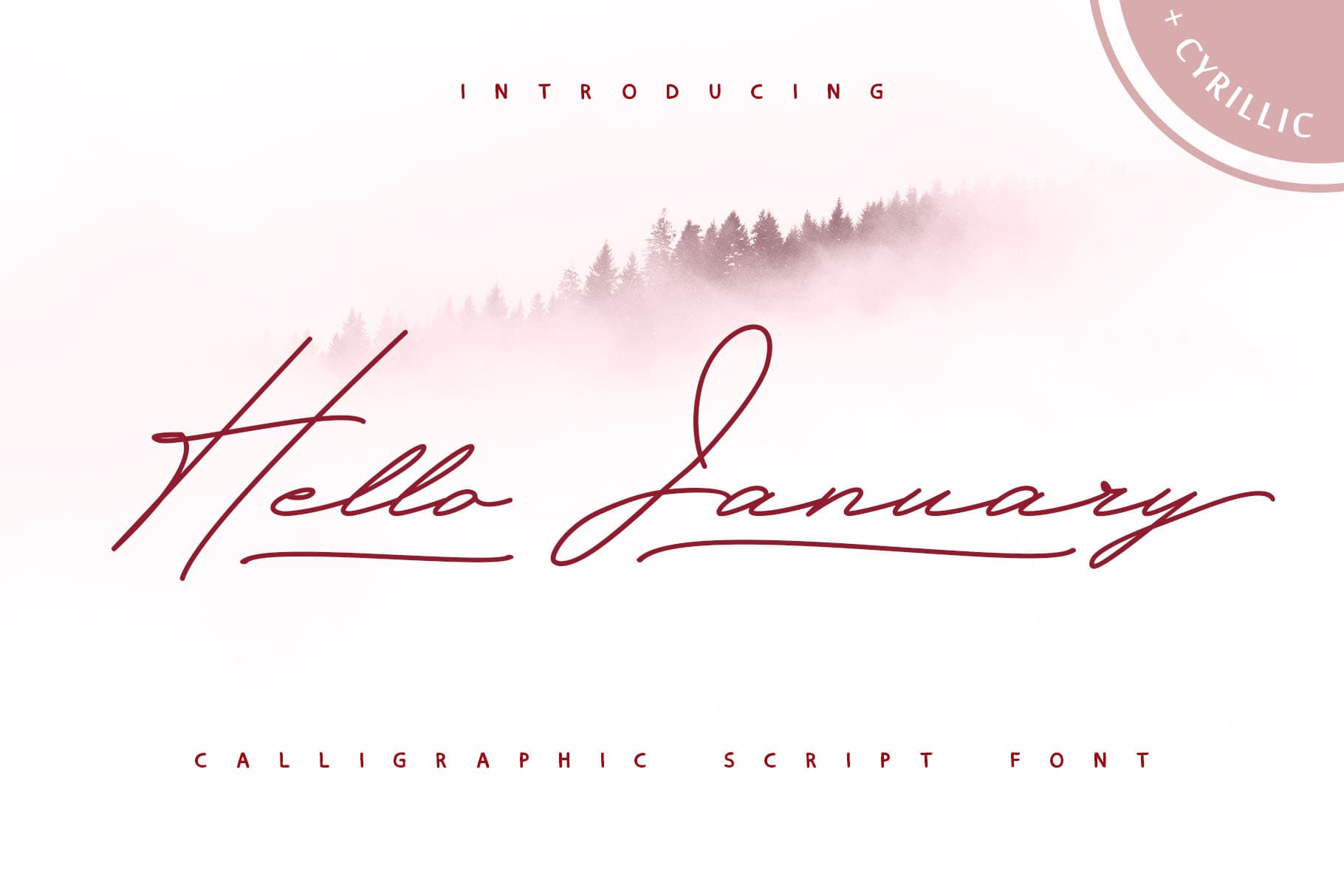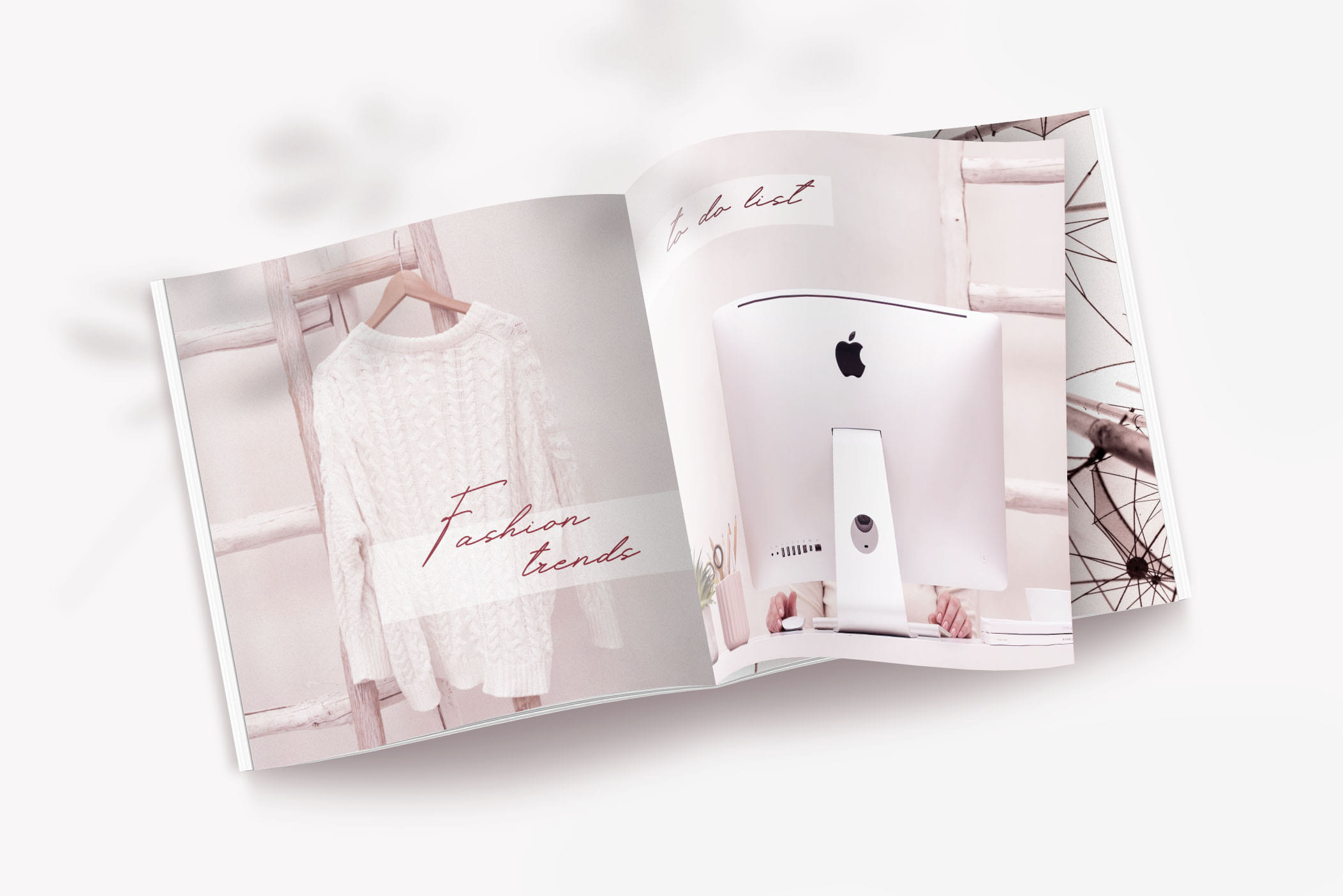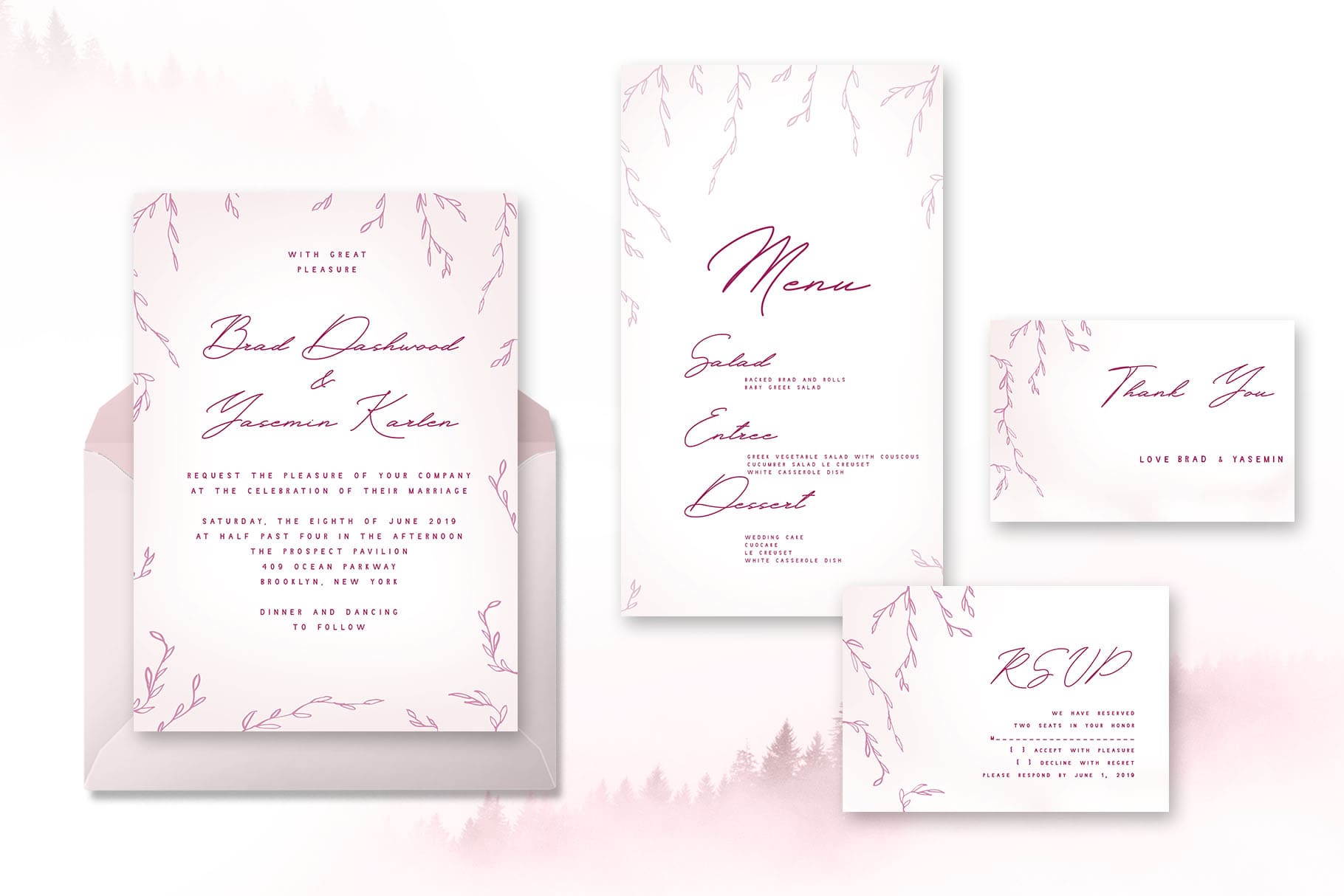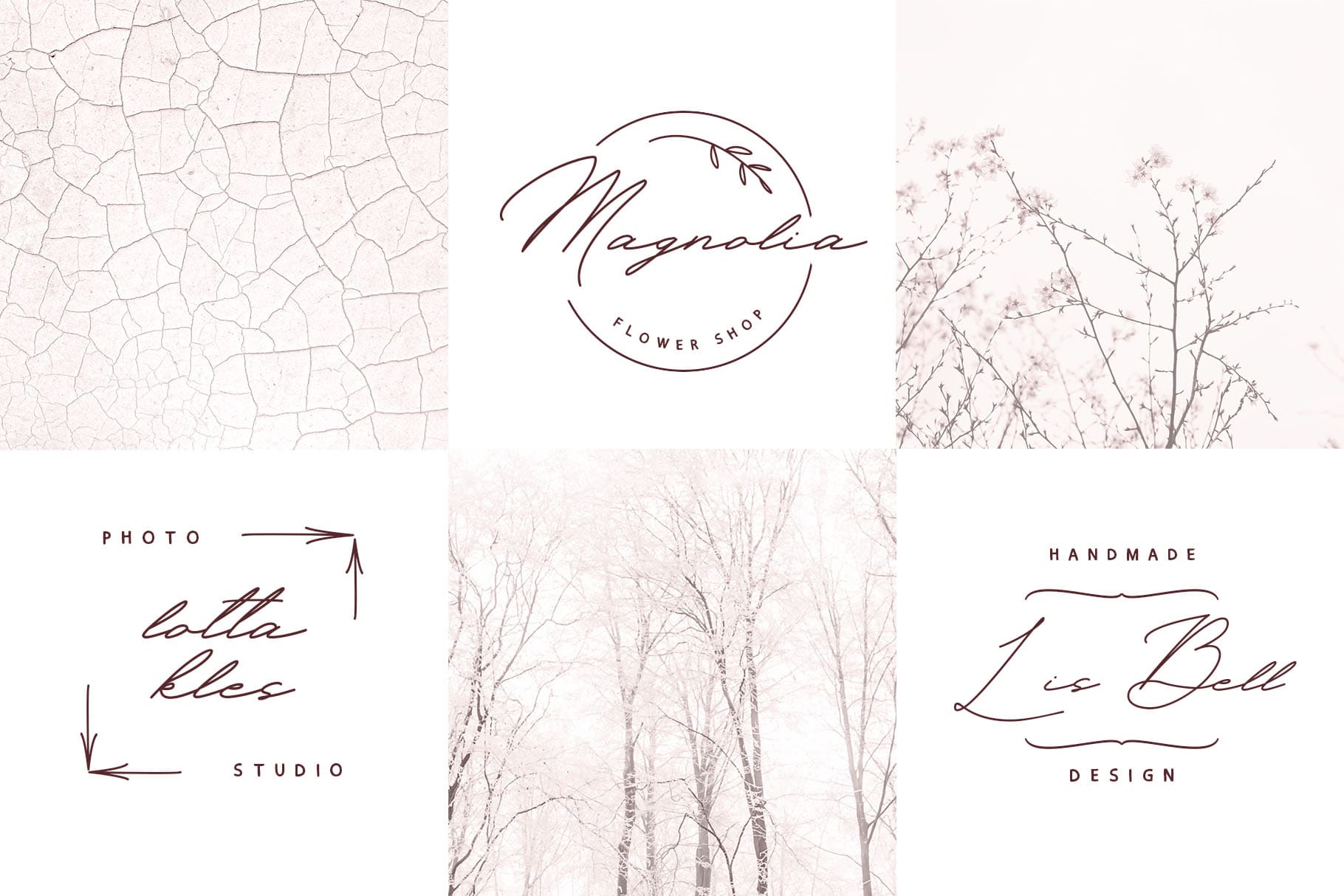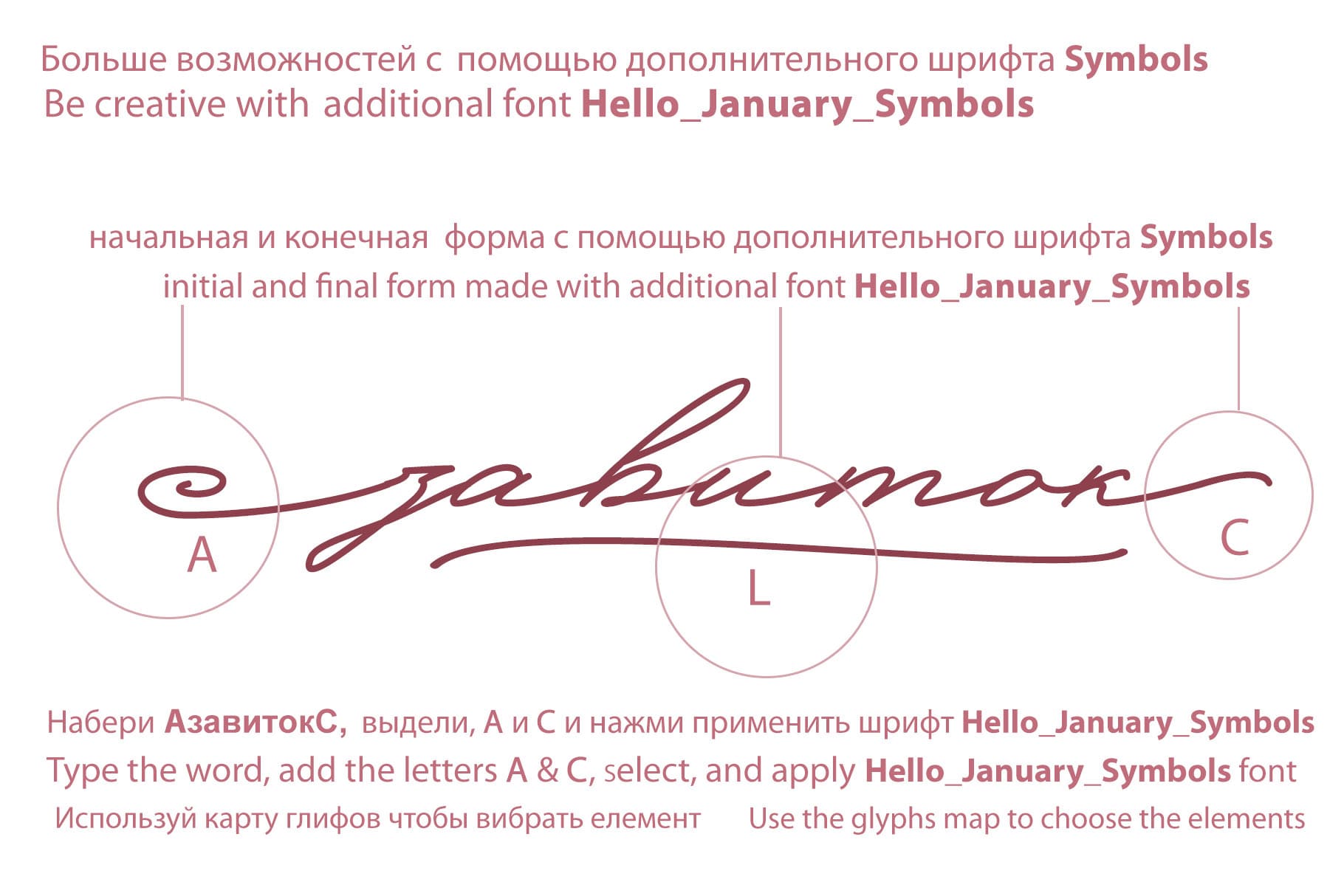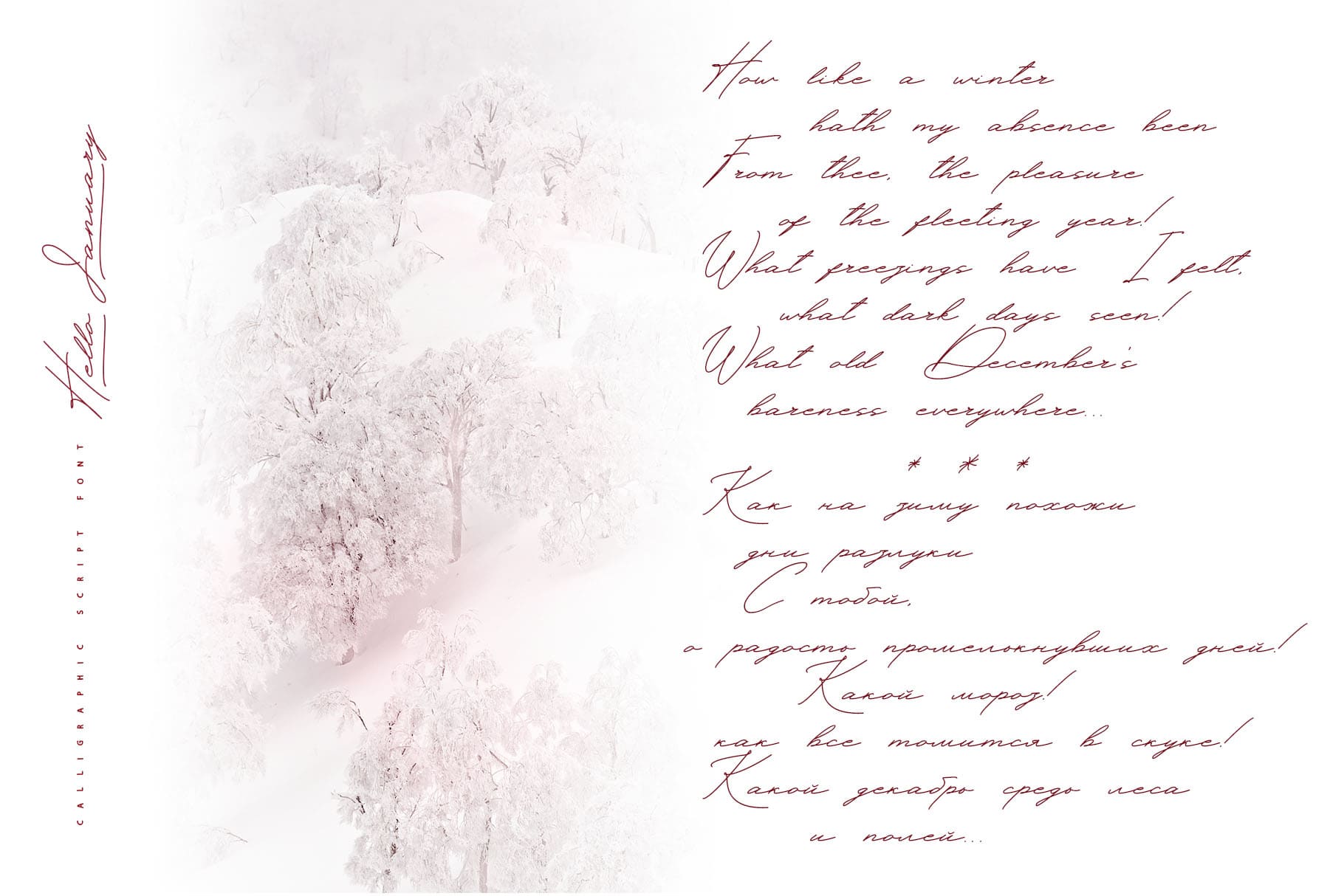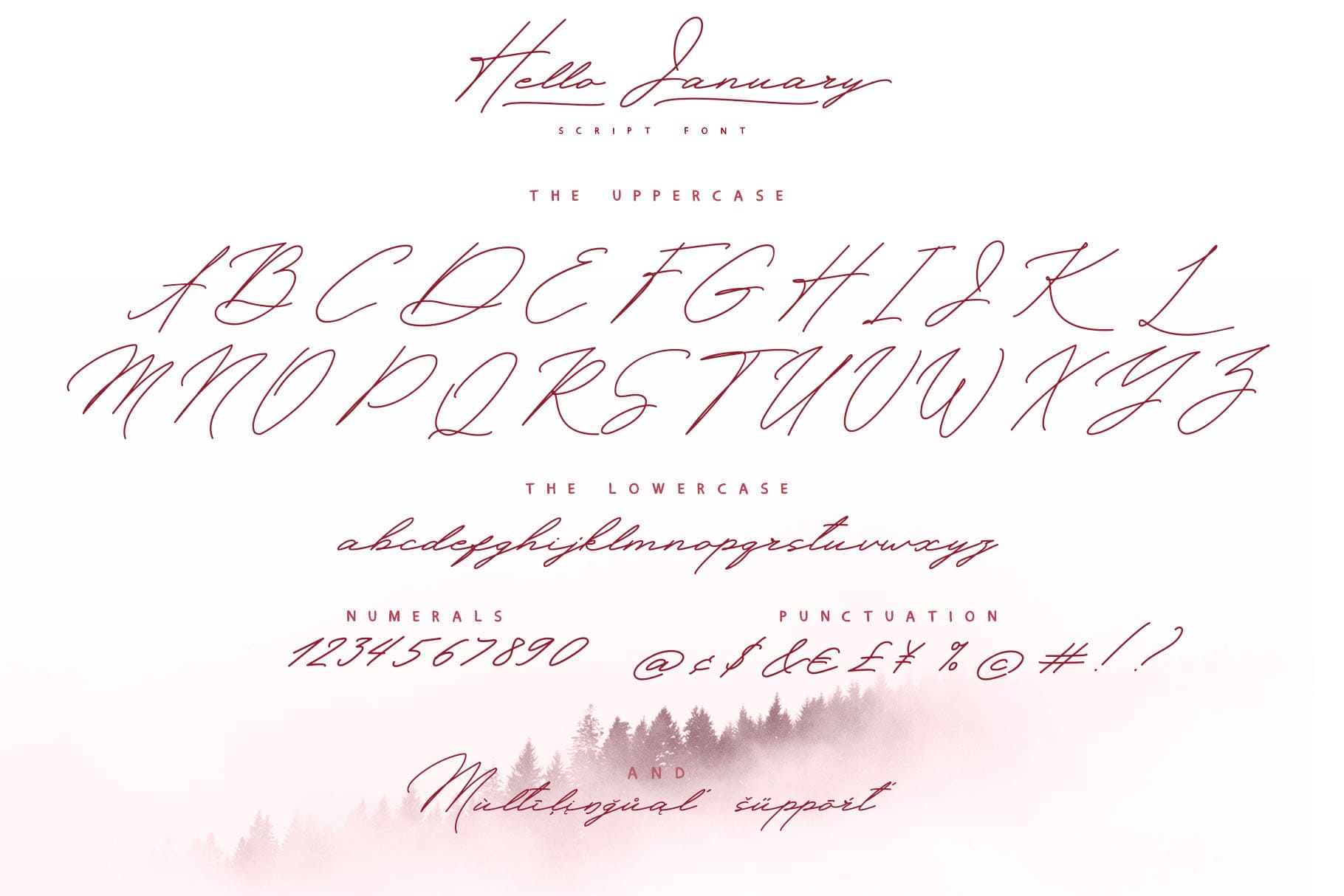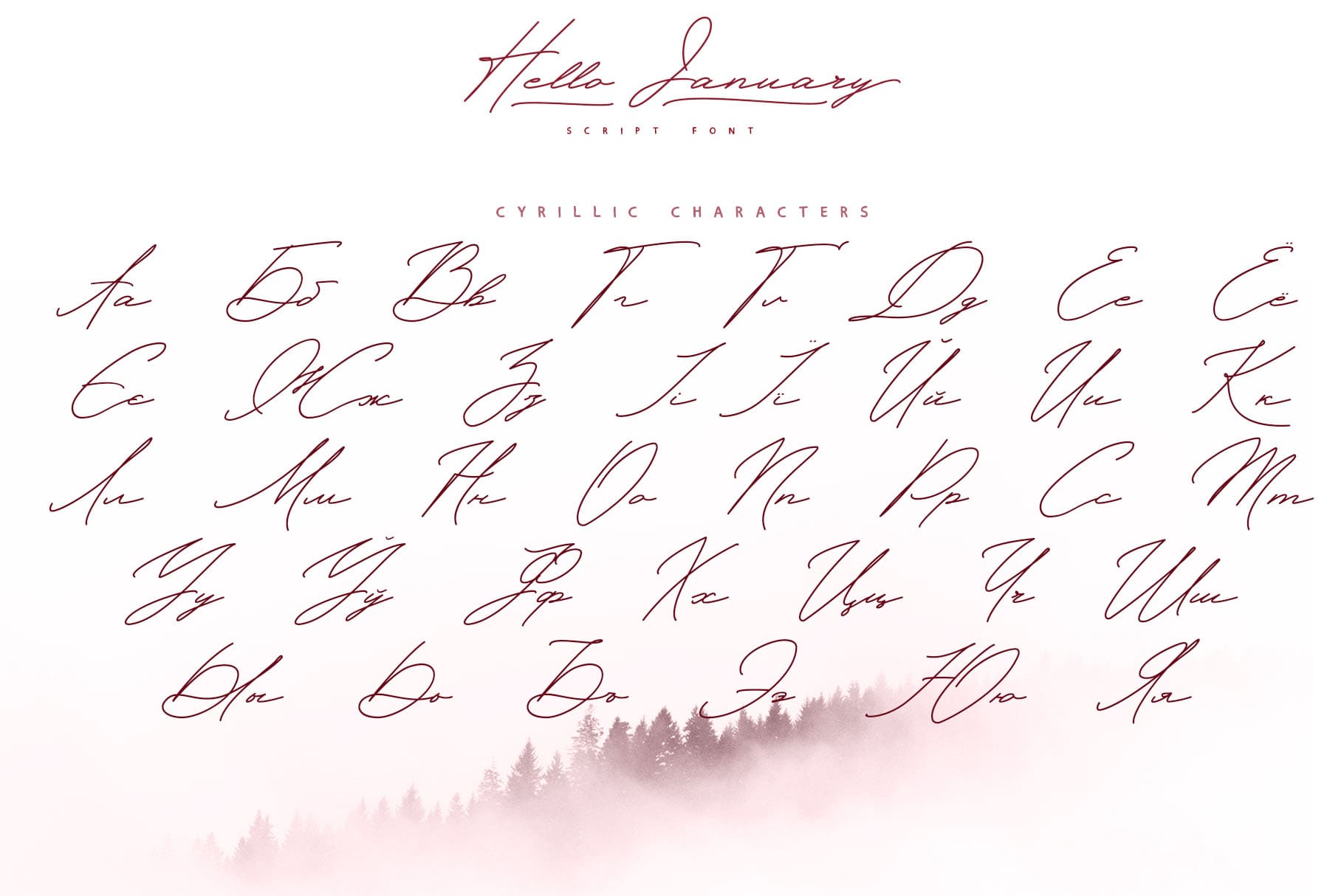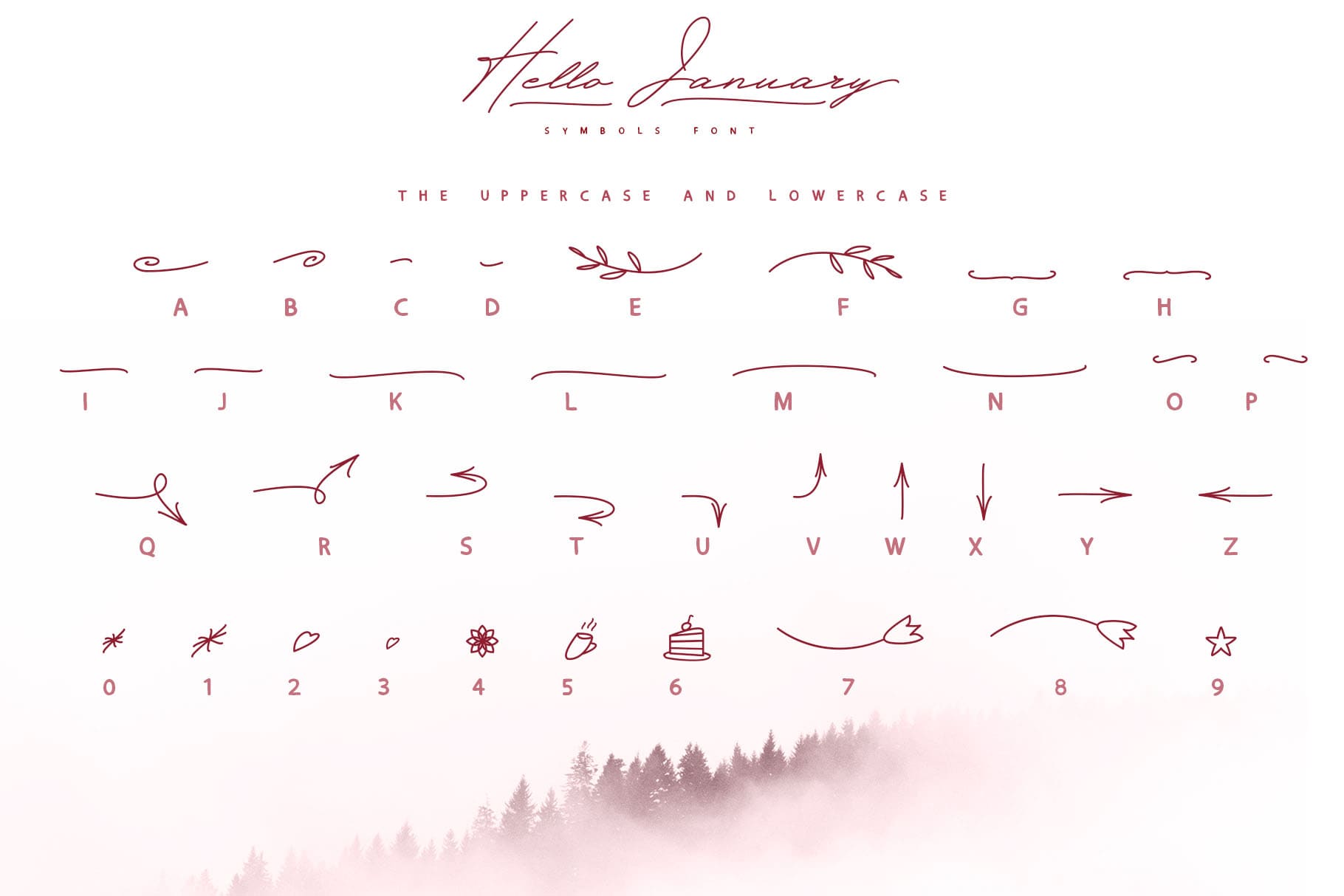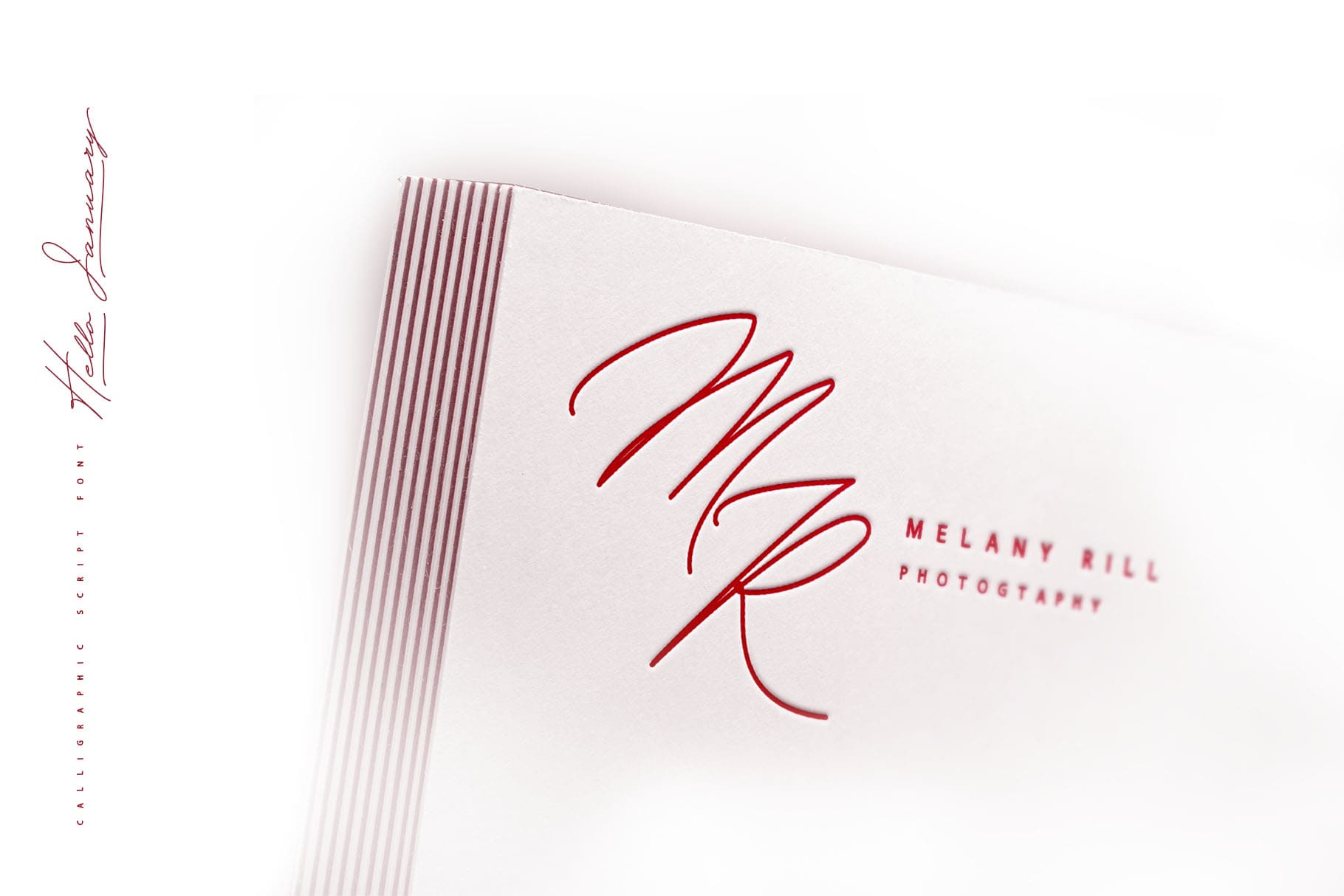
Hello January script font is a graceful cursive calligraphic script font which also contains the Cyrillic glyphs. It comes with 36 lovely hand-drawn illustrations great for wedding stationery, love stories, branding materials, monoline logos, business/wedding cards, fashion sketches, calligraphy monograms and much more.
Multilingual Support for 31 languages:
Latin glyphs for Afrikaans, Albanian, Basque, Bosnian, Catalan, Danish, Dutch, English, Estonian, Faroese, Filipino, Finnish, French, Galician, Indonesian, Irish, Italian, Malay, Norwegian Bokmål, Portuguese, Slovenian, Spanish, Swahili, Swedish, Turkish, Welsh, Zulu. And Cyrillic glyphs support for Russian, Belorussian, Bulgarian and Ukrainian languages.